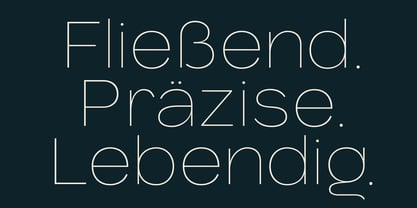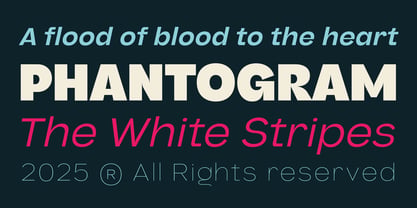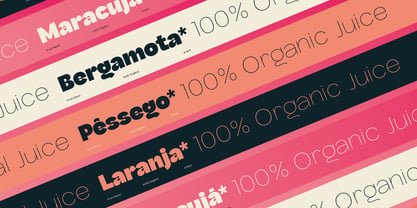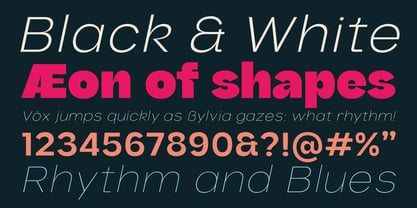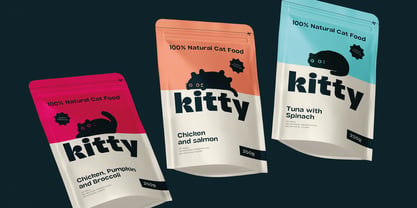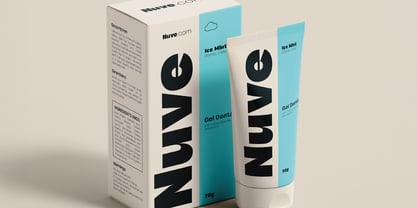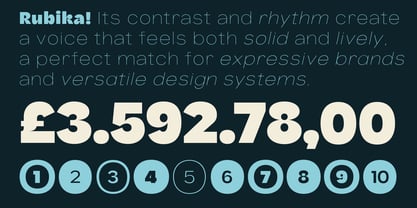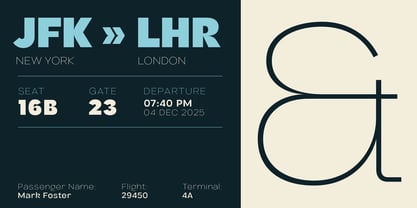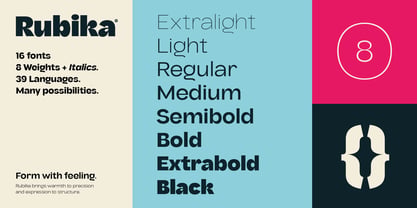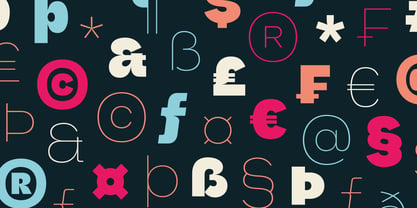
Rubika
by TipoType
The Rubika Font Family was designed by Tipotype Team, Lucas Pozzobon and published by TipoType. Rubika contains 16 styles and family package options. More about this family
Rubika is a neo-grotesque sans typeface with a distinctive personality: it blends organic shapes, sharp contrasts, and a friendly, expressive attitude. Its design conveys warmth and dynamism without sacrificing legibility or structural solidity. The goal of the presentation is to reflect this balance between playfulness and professionalism, showcasing how Rubika can adapt seamlessly to both creative, casual contexts and high-end brand environments — including industries such as packaging, entertainment, editorial, and more.
Designers: Tipotype Team, Lucas Pozzobon
Foundry: TipoType